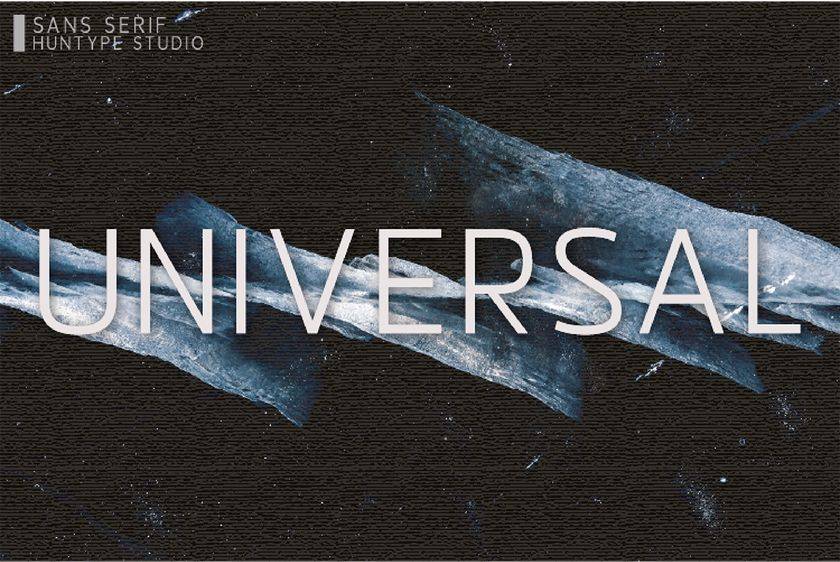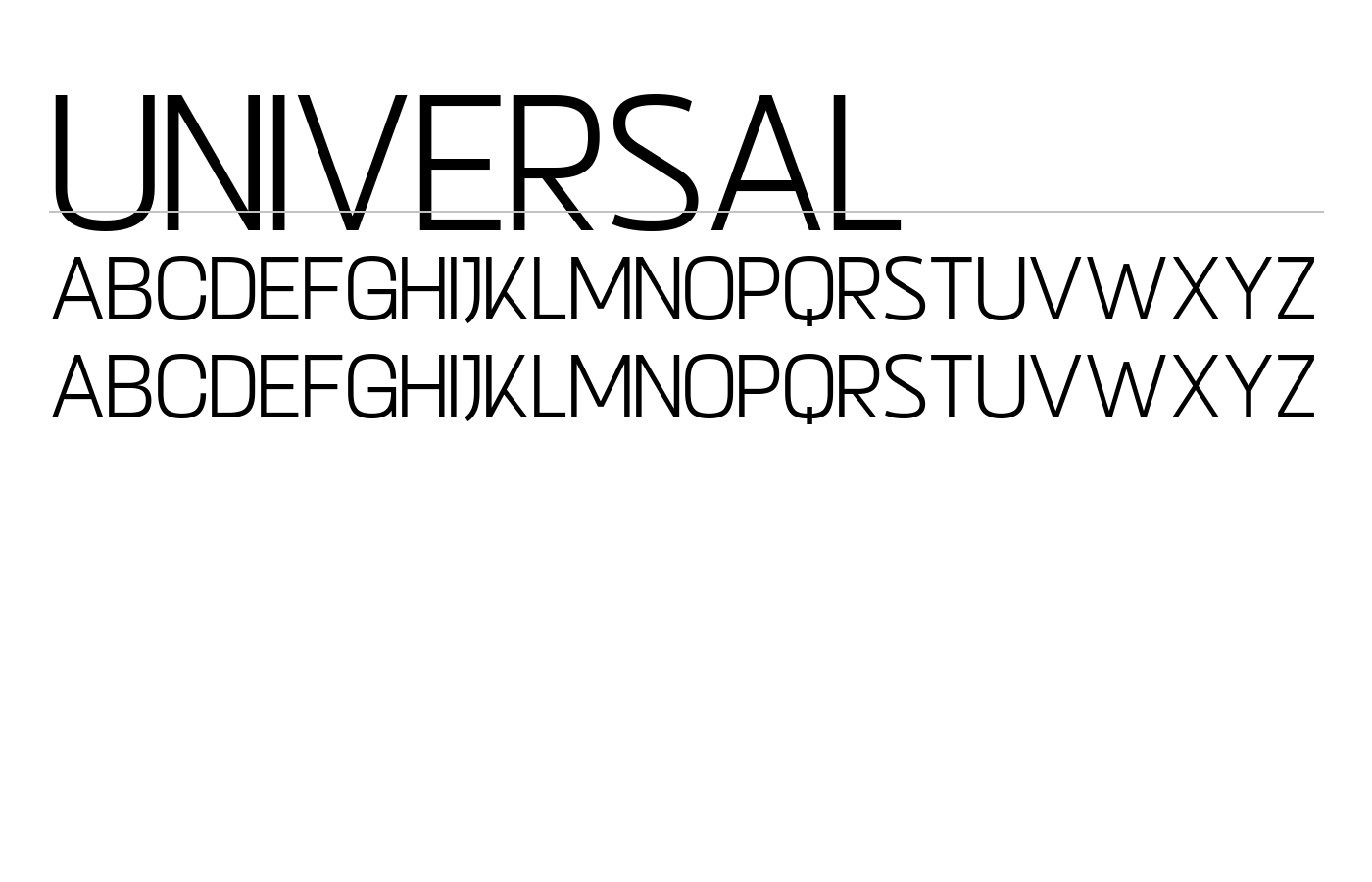
Universal Font is a sleek, ultra-light sans serif with a narrow, condensed style that emphasizes height and modern simplicity. Its clean, geometric letterforms create a fresh, elegant look ideal for contemporary branding, editorial headlines, and digital interfaces where clarity and sophistication are key. This font works well in designs that seek a minimalist yet distinctive presence.
Universal Font
About Universal Font